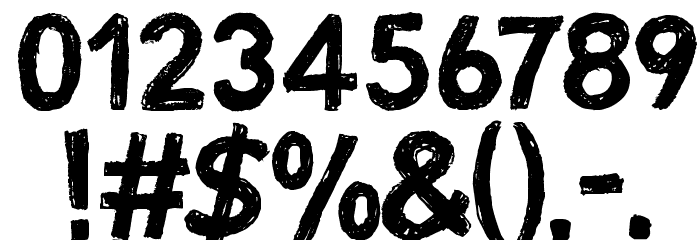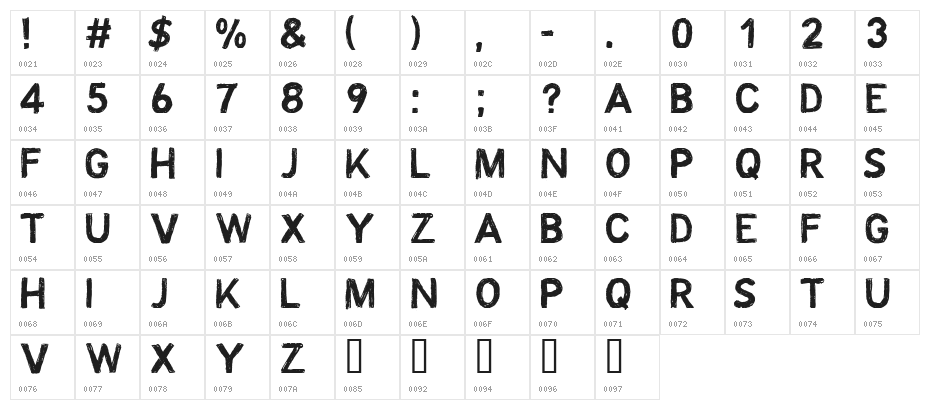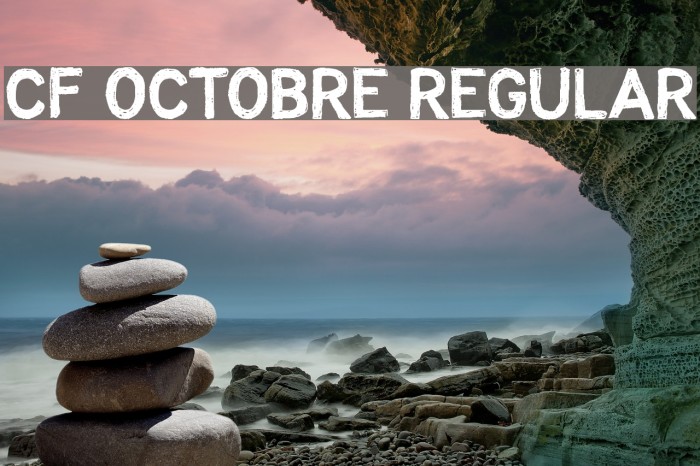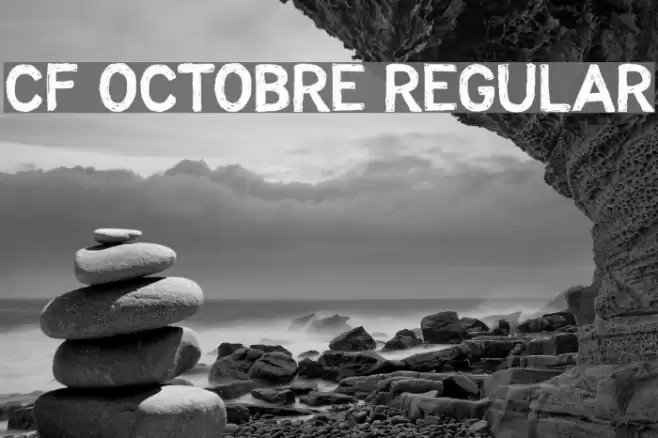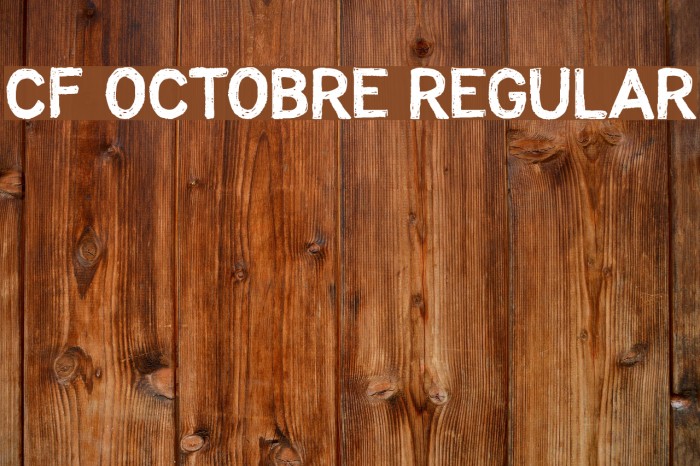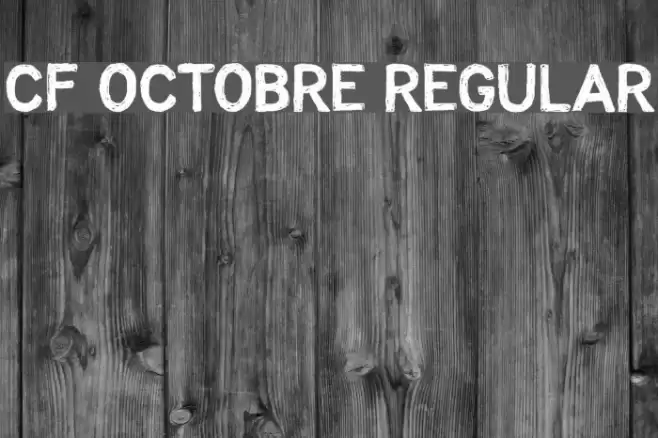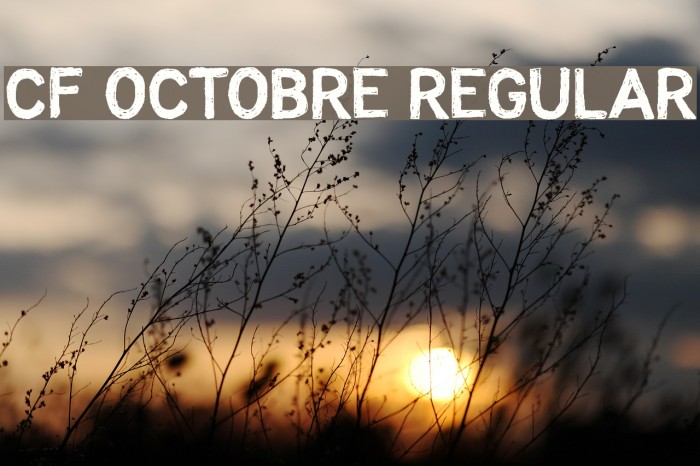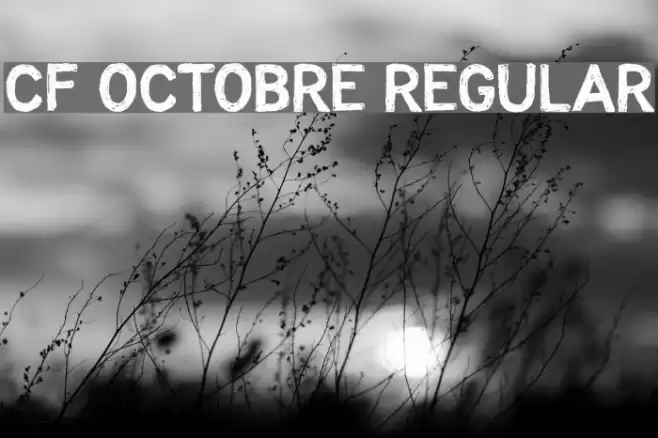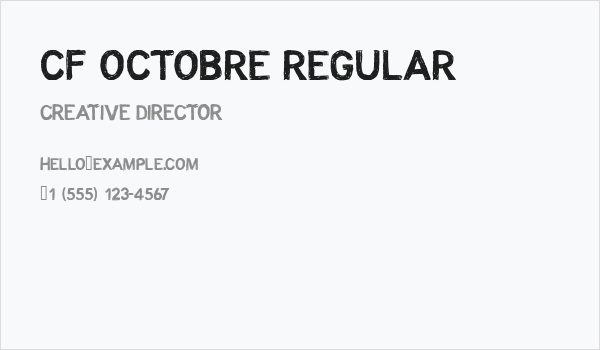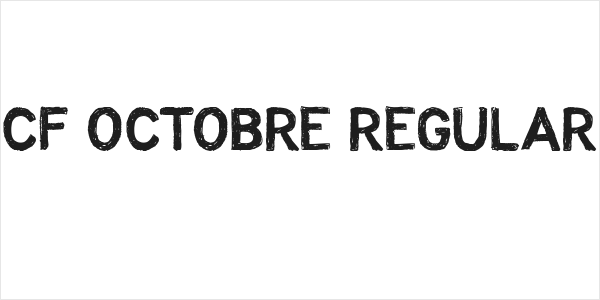
CF Octobre Regular Font
CF Octobre Regular Description
This font features a bold and textured style, reminiscent of hand-painted or stamped lettering. The characters have a rough, distressed appearance, giving them a unique, organic feel. The uppercase letters are prominent and assertive, while the lowercase letters maintain a consistent style with slightly rounded edges. Numbers and special characters follow the same rugged aesthetic, ensuring a cohesive look across all glyphs. The font's design is ideal for projects that require a bold statement or a vintage, handcrafted touch.
Overall StyleVintage, Decorative
Proposed ProjectsIdeal for posters, branding, packaging, and any design work that requires a bold, vintage aesthetic.